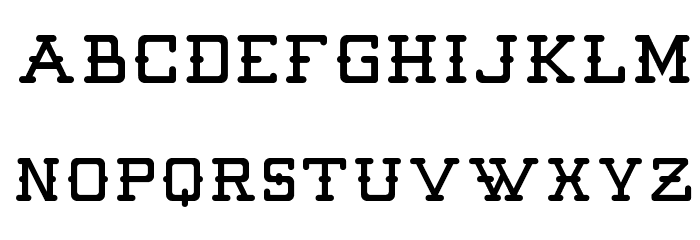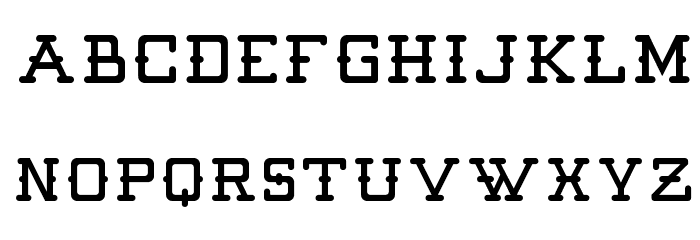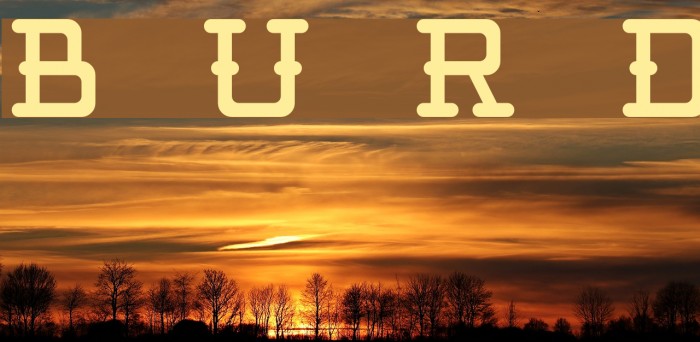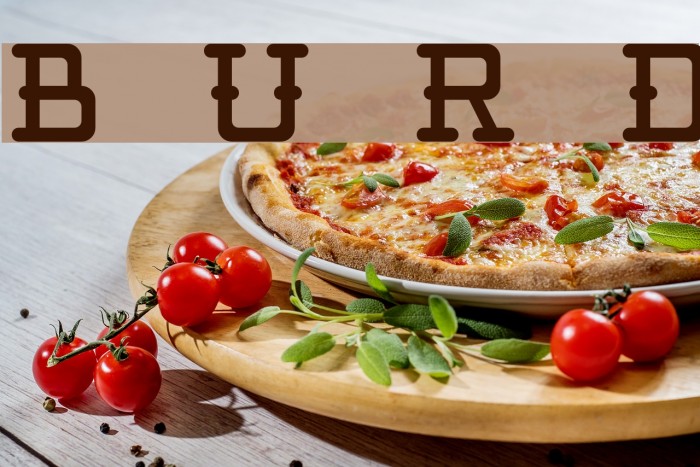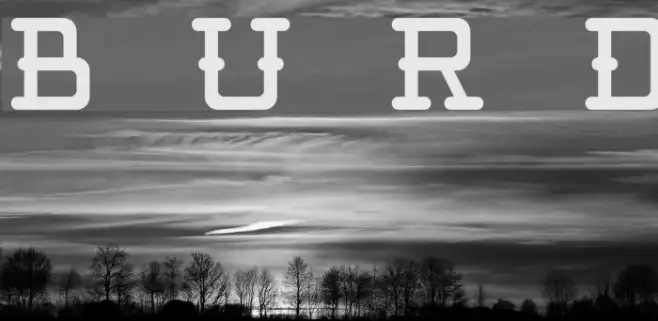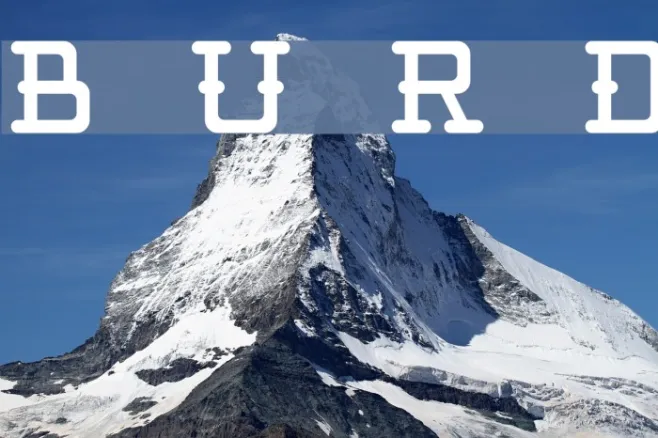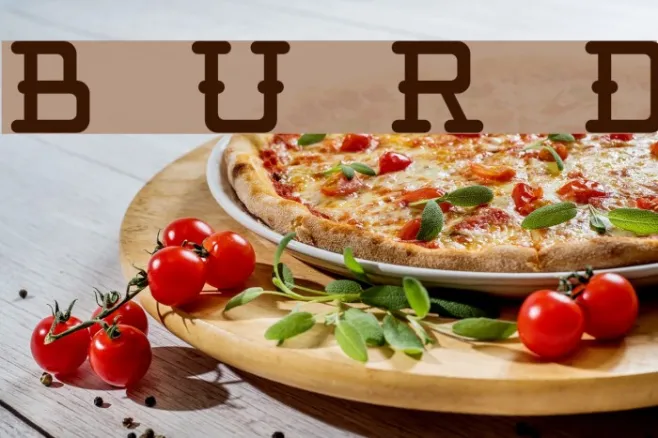
Batter Up Regular Demo Font
This font features a bold, slab serif style with a distinct vintage appeal. The characters are uniformly structured with strong, block-like serifs that give it a sturdy and robust appearance. The uppercase letters are consistent in height and width, providing a balanced and cohesive look. The font's design is reminiscent of old-school sports jerseys or vintage signage, making it ideal for projects that require a touch of nostalgia or a retro vibe. The spacing between characters is normal, ensuring readability while maintaining its bold presence.
A bold, vintage slab serif font with a strong, nostalgic appeal.
- Proposed Projects: Ideal for sports branding, vintage posters, retro-themed events, and signage.
- Overall Style: Vintage